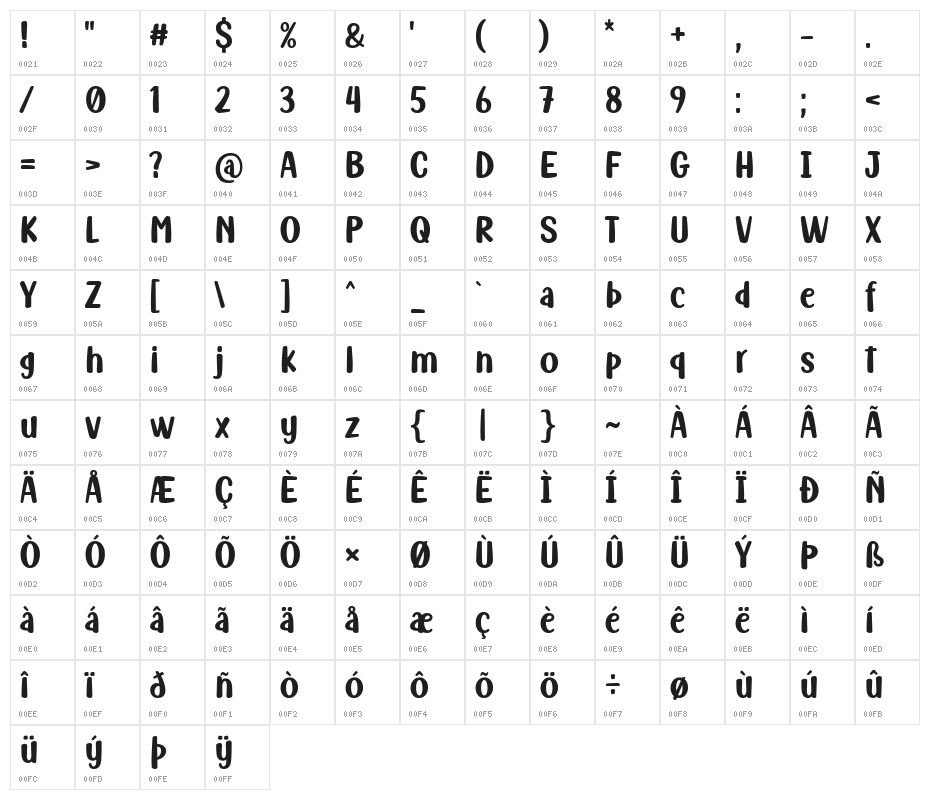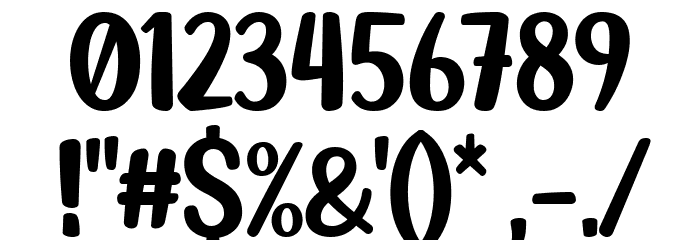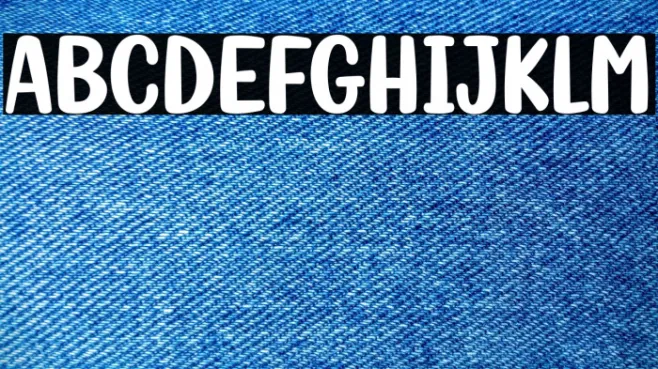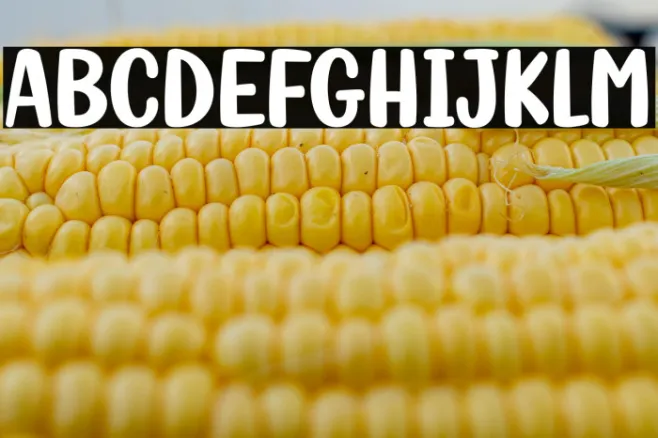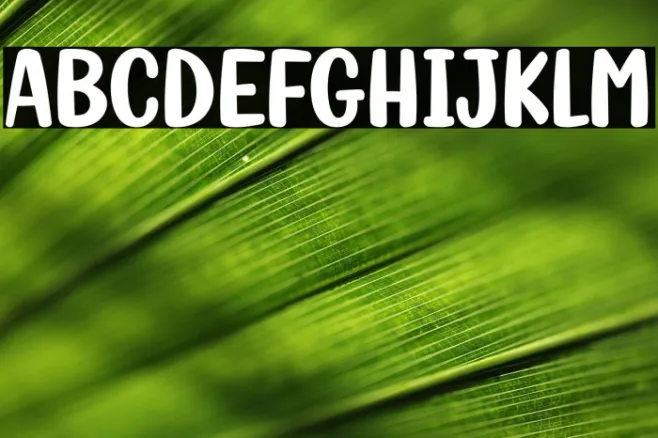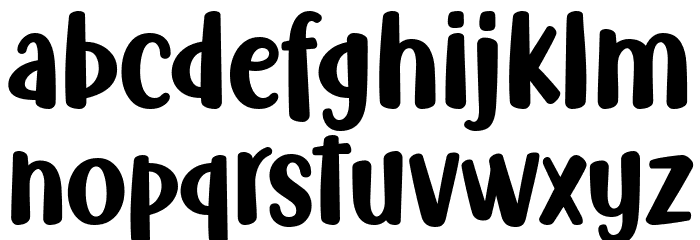
Fish Grill Font
Fish Grill Description
This font features a playful and bold style with rounded edges and a hand-drawn appearance. The uppercase and lowercase letters maintain a consistent thickness, giving it a cohesive look. The numbers and special characters follow the same design principles, ensuring uniformity across all characters. Its informal and friendly vibe makes it suitable for creative and casual projects. The font's thick strokes and rounded forms contribute to its legibility, even at smaller sizes, while the unique character shapes add a touch of personality.
| Proposed Projects | Ideal for children's books, playful branding, greeting cards, and social media graphics. |